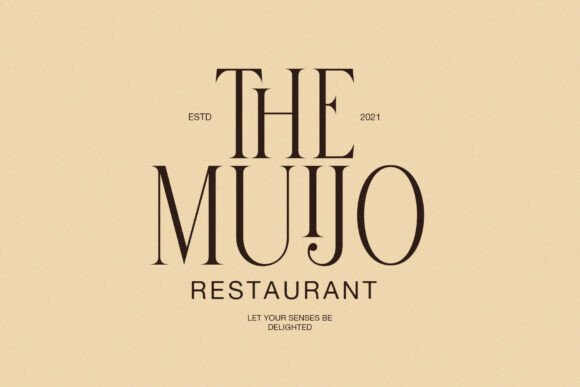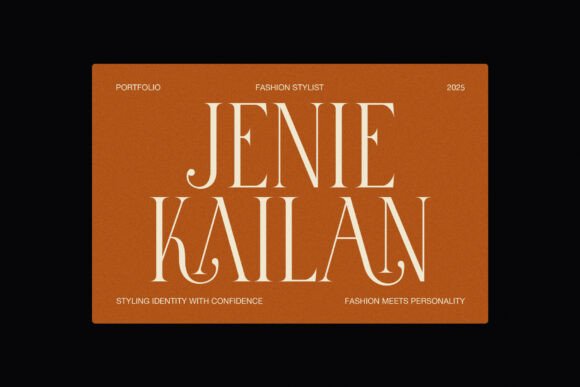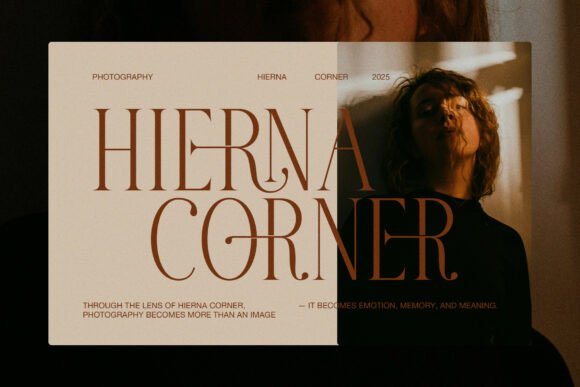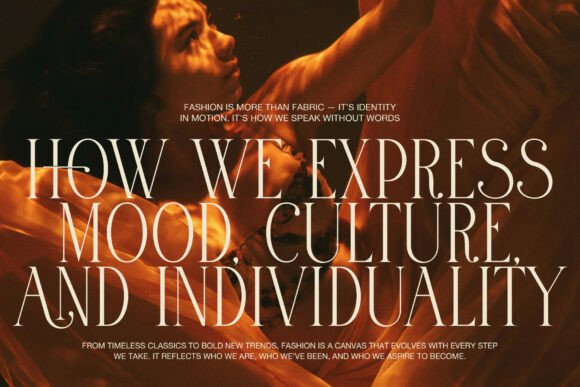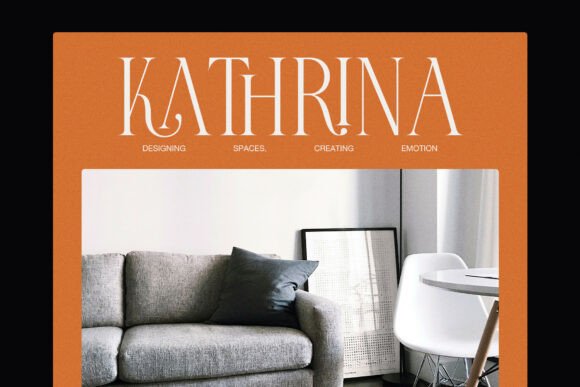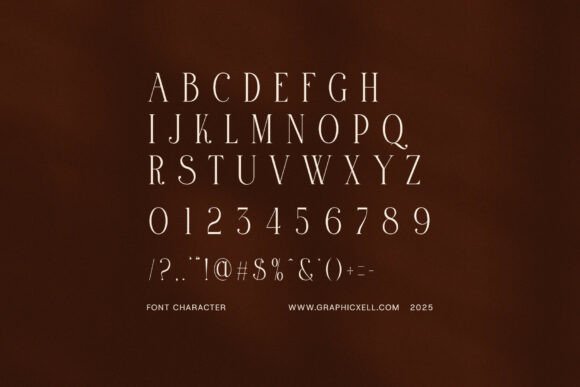
Introduction to Kidora Font
As a designer, there’s nothing quite like the thrill of bringing a creative project to life. The blank canvas, the endless possibilities, and the satisfaction of watching your ideas take shape – it’s a feeling like no other. But sometimes, it’s the little details that can make all the difference. A well-chosen font, for instance, can elevate your design from good to great. And that’s where Kidora Font comes in – a clean and elegant serif font that’s sure to impress.
With its modern look and soft curves, Kidora Font is the perfect addition to any design resource. Whether you’re working on a logo, website, or social media post, this font is sure to bring a touch of sophistication and style to your project. And the best part? It’s free to download and comes with a transparent background, making it easy to use in any design scenario.
Key Features of Kidora Font
- Unique, hand-drawn style with a transparent background, ideal for graphic designers and digital artists.
Honest Review: Kidora Font
I recently had the opportunity to work with the Kidora Font for a creative project, and I must say it’s a fantastic design resource. The font is free to download, which is a huge plus for designers like me who are always on the lookout for high-quality fonts without breaking the bank.
One of the things that really stands out about the Kidora Font is its versatility. It’s perfect for a variety of design projects, from children’s books to advertising campaigns. The font’s unique style is sure to add a touch of whimsy and creativity to any design.
- Transparent background, making it easy to work with
- Perfect for a variety of design projects
- Limited number of font styles (only a few options available)
- Not ideal for formal or professional designs
Overall, I’m really impressed with the Kidora Font. It’s a great addition to any designer’s toolkit, and I would definitely recommend it to others. Just be aware of its limitations and use it for the right kind of project.
Tips for Getting the Most Out of Kidora Font
To get the most out of Kidora Font, use it in combination with other design resources, such as graphics and images. This will help you create visually appealing and engaging designs for your creative project.
Kidora Font is commonly used in digital marketing materials, such as social media posts and advertisements, as well as in print media, like brochures and flyers. Its versatility makes it an ideal choice for a wide range of creative projects.
Q: Is the Kidora Font suitable for print and digital use?
Yes, the Kidora Font is designed to be used in both print and digital mediums. It’s a high-quality font that can be used in a variety of creative projects, from business cards and brochures to websites and mobile apps. The font is optimized for clear readability and can be used at various font sizes and resolutions.